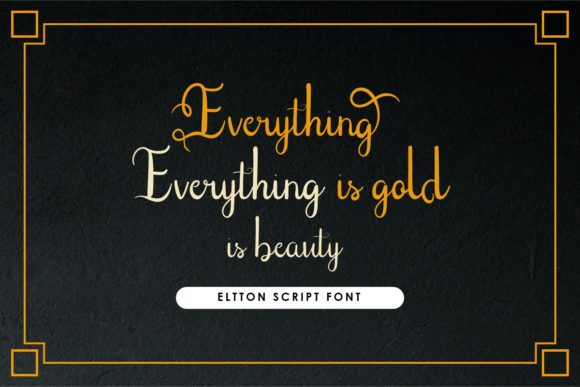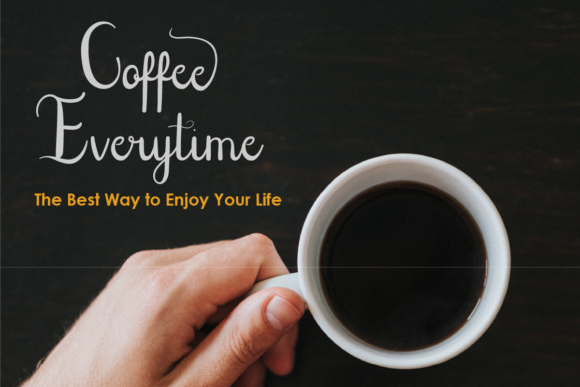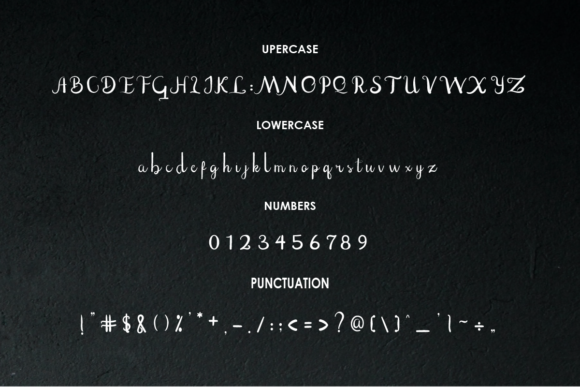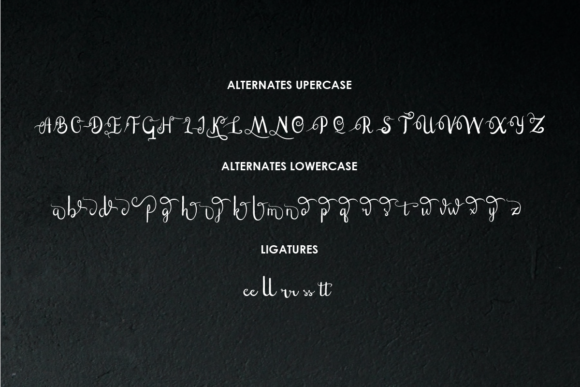
Introducing Eltton Font: Elevate Your Designs with Elegance and Sophistication
In the world of typography, a well-crafted font can make all the difference in elevating your designs from ordinary to extraordinary. If you’re a designer, crafty enthusiast, or simply someone who appreciates beautiful typography, you’re in for a treat. Say hello to Eltton Font, an elegant and distinct handwritten font that’s sure to captivate your audience.
The Essence of Eltton Font
Eltton Font is a masterful blend of classic calligraphic influences and modern flair. Its elegant strokes and refined lines evoke a sense of sophistication and luxury, making it perfect for designs that demand a touch of high-end style. Whether you’re working on a branding project, packaging design, or simply creating art for pleasure, Eltton Font is an excellent choice.
What Sets Eltton Font Apart
So, what makes Eltton Font stand out from the crowd? Here are a few key features that set it apart:
- PUA Encoding: Eltton Font is PUA (Private Use Area) encoded, which means you can access all the glyphs and swashes with ease. This feature allows you to unlock the full creative potential of the font and experiment with different styles and combinations.
- Handwritten Charm: Eltton Font boasts a beautiful, handwritten quality that’s both personal and engaging. Its unique character makes it perfect for designs that require a touch of warmth and personality.
- Contemporary and Fresh: Despite its classic influences, Eltton Font feels remarkably contemporary and fresh. Its modern twist ensures that your designs will look current and stylish, even in today’s fast-paced design landscape.
Use Cases for Eltton Font
Eltton Font is an incredibly versatile typeface that can be used in a wide range of design projects. Here are a few ideas to get you started:
- Branding and Logos: Create a lasting impression with a custom logo that showcases the elegance and sophistication of Eltton Font.
- Stationery and Packaging: Add a touch of luxury to your stationery, business cards, and packaging designs with Eltton Font’s refined lines and classic charm.
- Art and Illustration: Use Eltton Font to add a personal touch to your artwork, illustrations, and mixed media projects.
- Web Design: Elevate your website’s typography with Eltton Font, perfect for headings, titles, and other display text.
Tips for Working with Eltton Font
To get the most out of Eltton Font, here are a few tips to keep in mind:
- Experiment with Swashes: Take advantage of Eltton Font’s PUA encoding and experiment with different swashes and glyphs to add unique flair to your designs.
- Mix and Match: Combine Eltton Font with other typefaces to create visually interesting contrasts and hierarchies.
- Pay Attention to Kerning: As with any font, be sure to adjust the kerning to ensure that your text looks polished and professional.
In conclusion, Eltton Font is a stunning, elegant typeface that’s sure to elevate your designs to new heights. Its unique blend of classic calligraphic influences and modern flair makes it perfect for designers, crafters, and anyone looking to add a touch of sophistication to their work. With its PUA encoding, handwritten charm, and contemporary feel, Eltton Font is an excellent addition to any design arsenal.